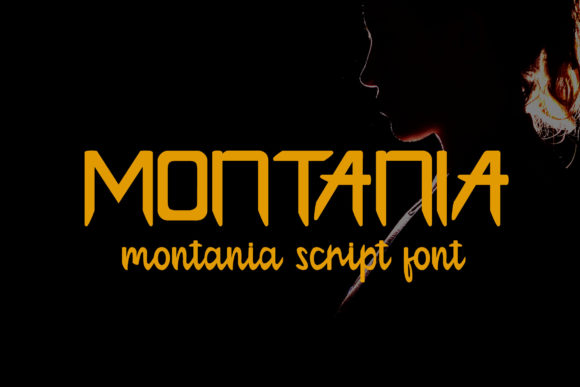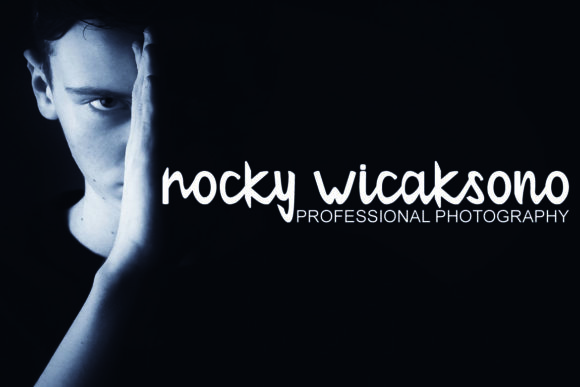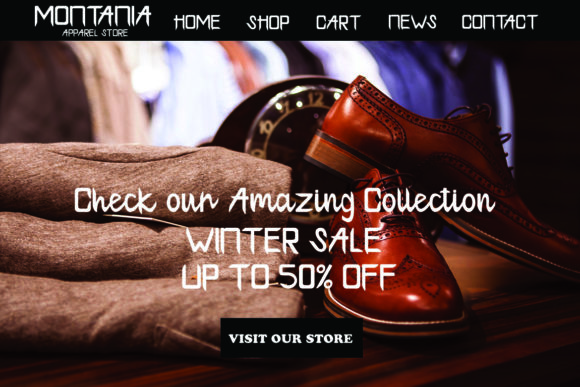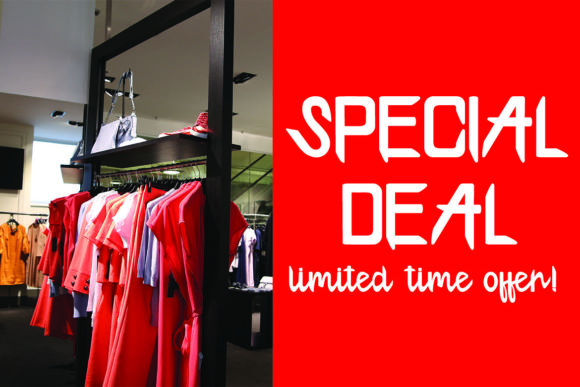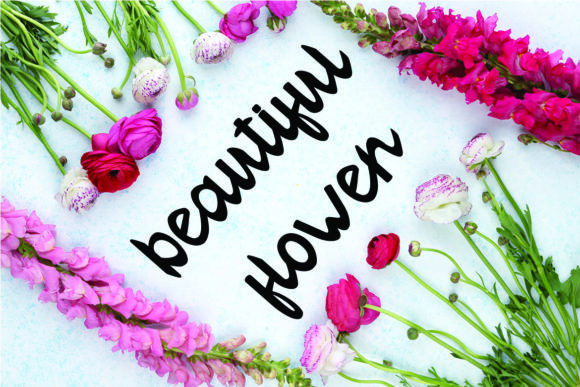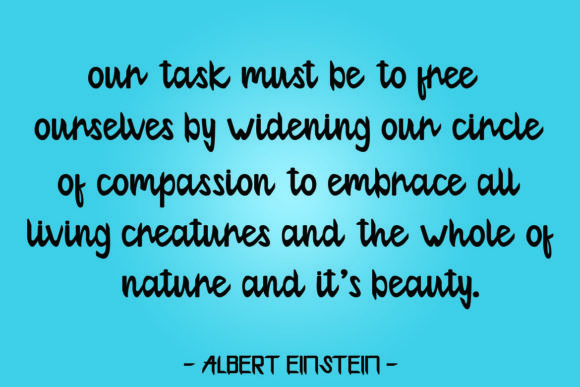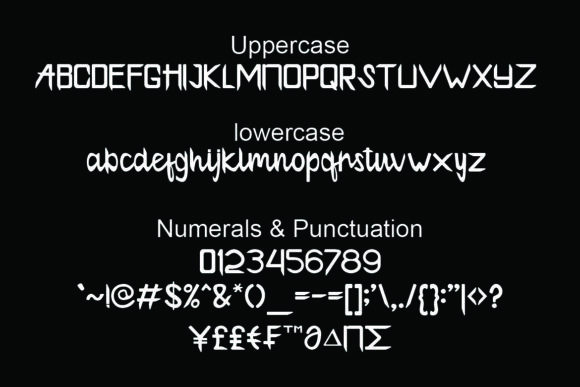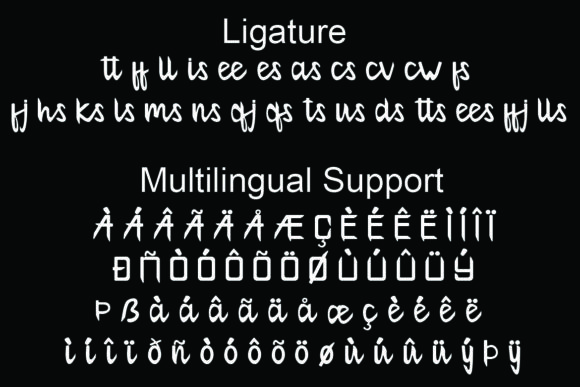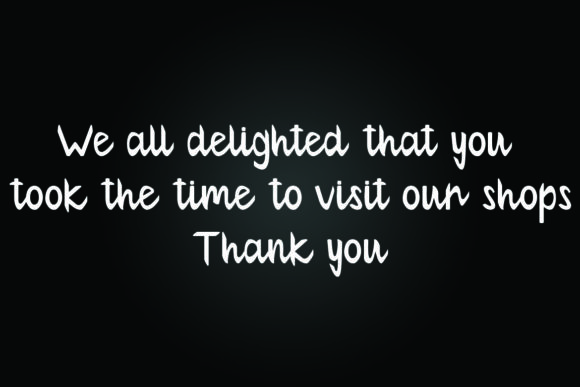
Montania Font
About Montania Font
Montania is a one-of-a-kind display font with a unique charm. It will elevate any new design project with its bold authenticity.